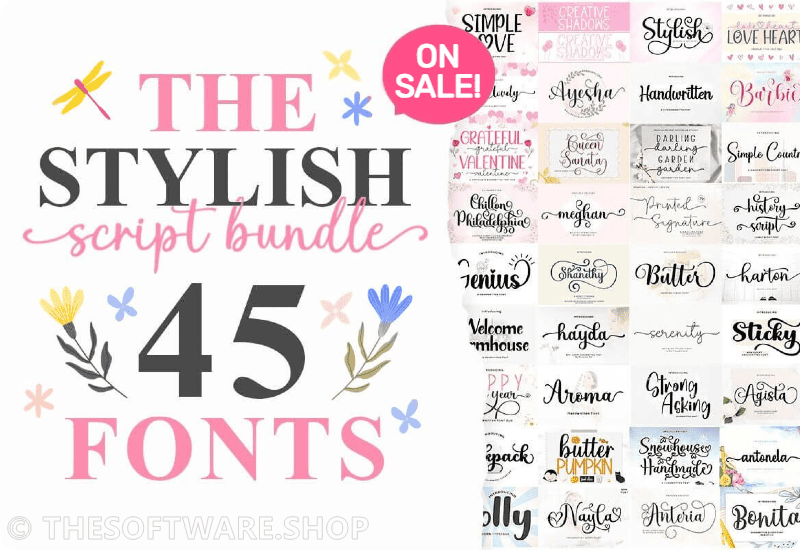
Captivating Elegance with Versatile Fonts:
Each font in the Stylish Script Font Bundle has been handpicked for its unique charm and versatility. Whether you’re crafting wedding invitations, branding materials, or social media graphics, these fonts offer the perfect blend of elegance and readability.
From the whimsical loops of the “Darling Garden” to the sleek lines of the “Sophia Beauty Serif,” this collection will ensure that your projects stand out. Below are the Premium Fonts included in this bundle:
- Handmade Farmhouse Outline Script & Handwritten Font
- Simple Country Fuentes Caligráficas Fuente
- Backpack Script & Handwritten Font
- Welcome Farmhouse Fuentes Caligráficas Fuente
- Sticky Script & Handwritten Font
- Grateful Valentine Script & Handwritten Font
- Hayda Script Skript-Schriftarten Schriftart
- Handwritten Script & Handwritten Font
- Genius Script & Handwritten Font
- Serenity Script & Handwritten Font
- Nayla Script & Handwritten Font
- Barbie Script & Handwritten Font
- Darling Garden Polices Manuscrites Police
- Sophia Beauty Serif Font
- Meghan Script & Handwritten Font
- Shanethy Script & Handwritten Font
- Stylish Script & Handwritten Font
- Ayesha Script & Handwritten Font
- Jolly Script & Handwritten Font
- Butter Pumpkin Duo Script & Handwritten Font
- Story Script & Handwritten Font
- Love Heart Duo Script & Handwritten Font
- Happy New Year Duo Script & Handwritten Font
- Chillon Philadelphia Script & Handwritten Font
- Blogger Serif Font
- Boho Style Script & Handwritten Font
- Butter Fuentes Caligráficas Fuente
- Simple Love Script & Handwritten Font
- Aroma Fuentes Caligráficas Fuente
- Printed Signature Script & Handwritten Font
- Oh Lovely Script & Handwritten Font
- Snowhouse Handmade Script & Handwritten Font
- Antonela Script & Handwritten Font
- Anteria Script Fuentes Caligráficas Fuente
- Creative Shadows Script Font
- Strong Asking Script & Handwritten Font
- Blackout Script & Handwritten Font
- Renatha Fuentes Caligráficas Fuente
- Harton Script & Handwritten Font
- The Costa Display Font
- Agista Skript-Schriftarten Schriftart
- Bonita Script & Handwritten Font
- History Script Script & Handwritten Font
- Money Script & Handwritten Font
- Queen Sanata Skript-Schriftarten Schriftart
Explore a diverse collection of script and handwritten fonts, offering a range of styles from simple, understated designs to bold statement pieces. With extensive multi-language support and a commercial license included, this bundle becomes an essential tool for all your professional projects.
- Diversity in Style: The bundle features a wide range of script and handwritten fonts, including simple, understated designs like “Simple Country” and bold statement pieces like “Blackout Script.”
- Multi-Language Support: With extended character sets, many of the fonts support multiple languages, broadening your creative and commercial reach.
Spotlight on Some Stunning Fonts:
Let’s delve into some standout fonts included in this generous giveaway:
- Backpack Script: A casual and modern touch that’s perfect for lifestyle brands and travel blogs.
- Hayda Script: Exudes a refined vibe that’s ideal for luxury branding and upscale event invitations.
- Jolly Script: Inject some joy into your holiday-themed projects with this playful font.
- The Costa Display Font: A font that bridges the gap between timelessness and contemporary flair, excellent for editorial work.